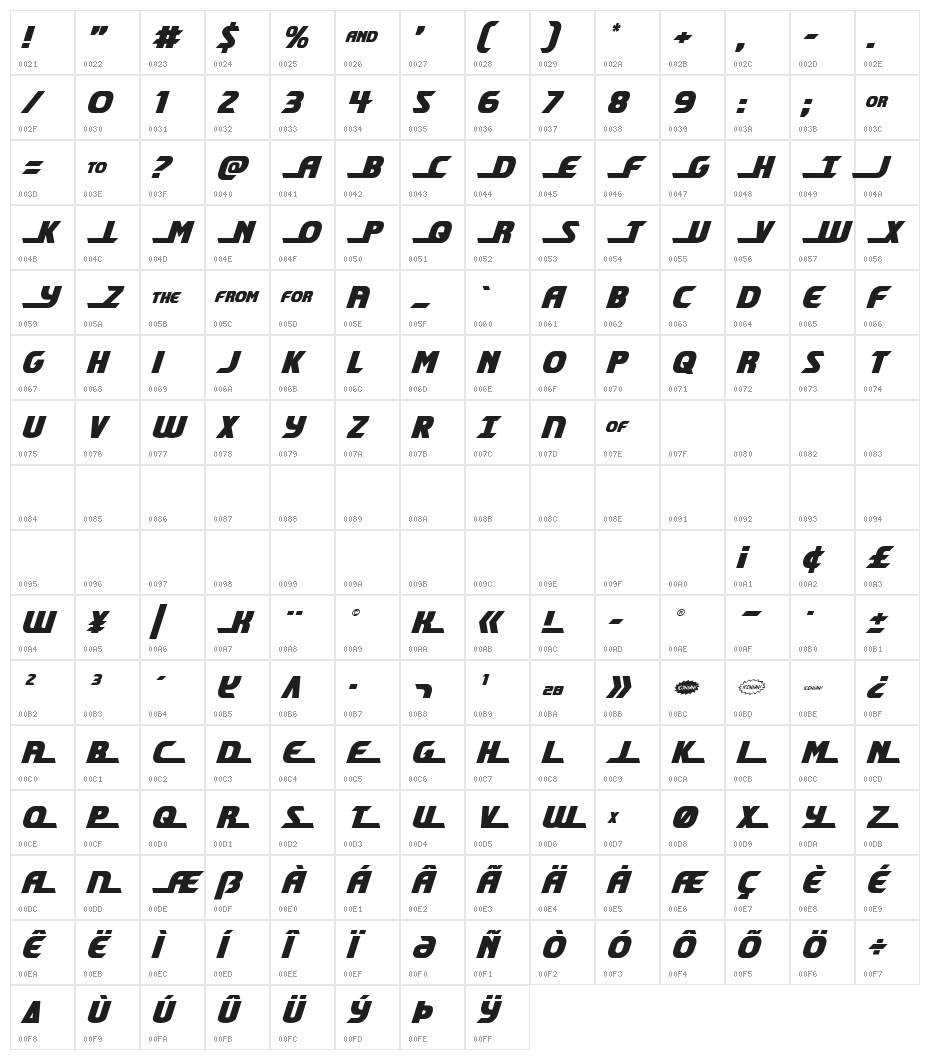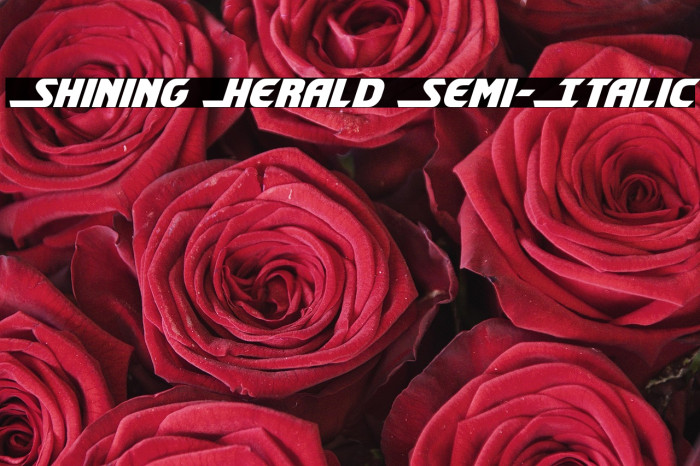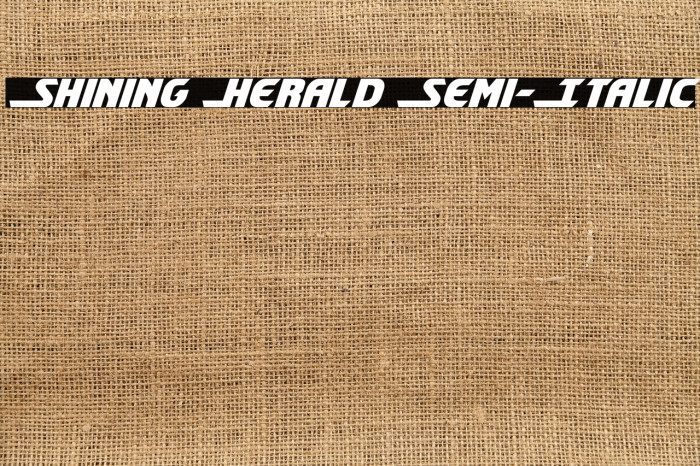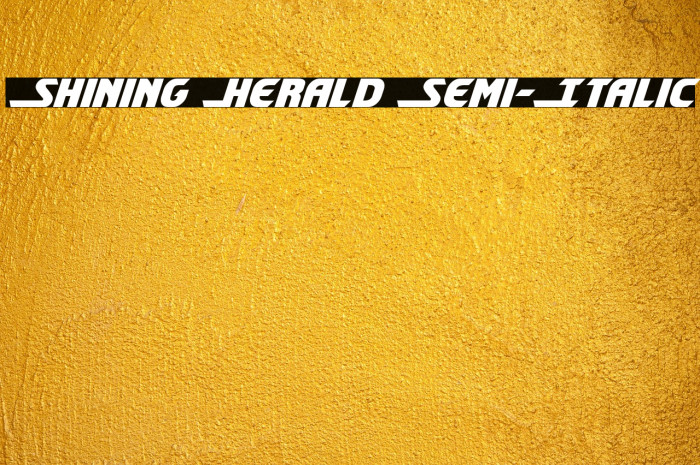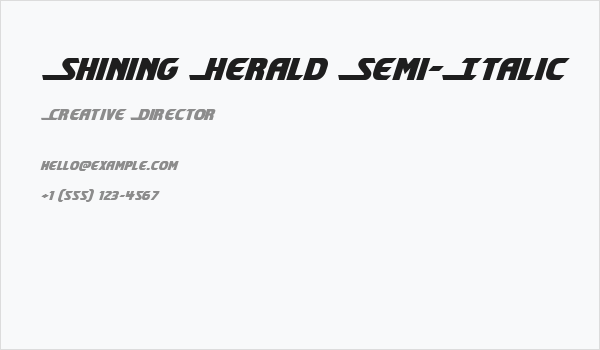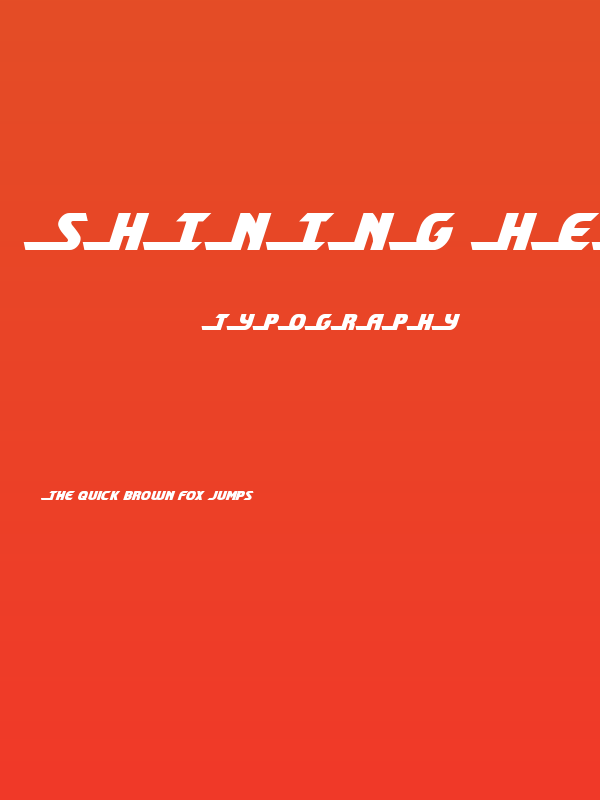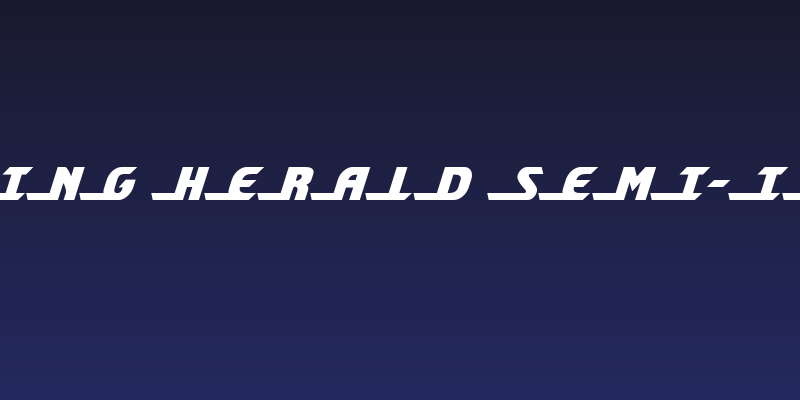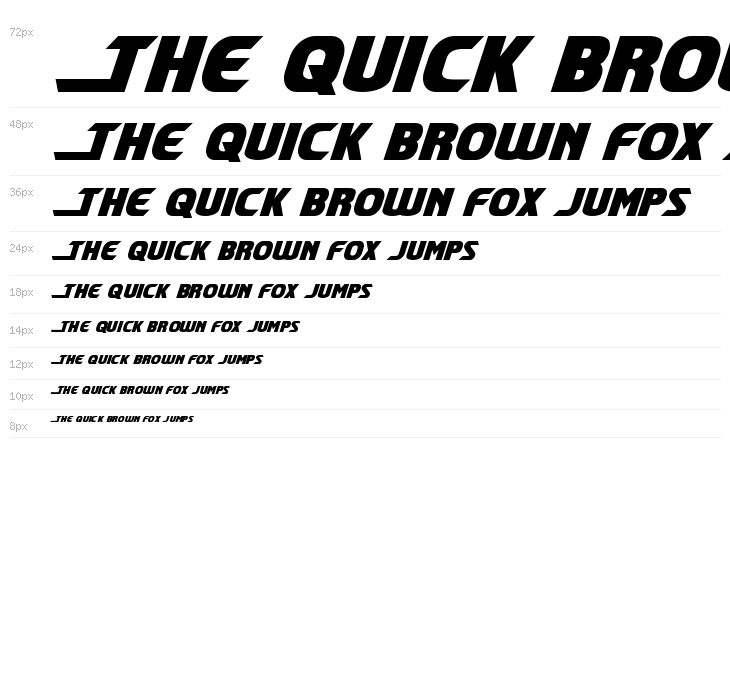
Shining Herald Semi-Italic Font
Shining Herald Semi-Italic Description
This font features a bold and dynamic style with a semi-italic slant, giving it a sense of movement and energy. The characters are robust and impactful, with a strong presence that makes them ideal for attention-grabbing designs. The uppercase letters are particularly striking, with sharp angles and a slightly condensed form that enhances their boldness. The numerals and special characters maintain this bold aesthetic, ensuring consistency across all elements. This font is well-suited for projects that require a modern and assertive look, such as sports branding, dynamic posters, or contemporary advertising campaigns.
Proposed ProjectsIdeal for sports branding, dynamic posters, contemporary advertising, and any project needing a bold, modern touch.